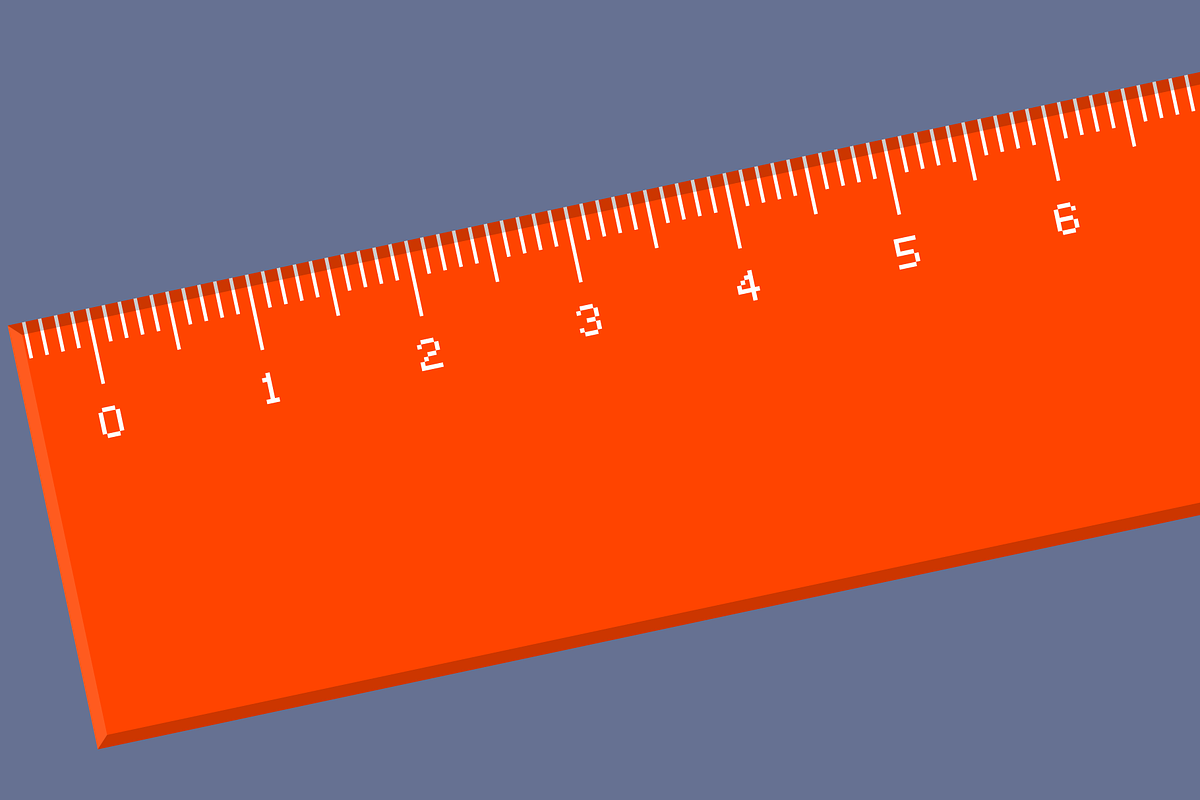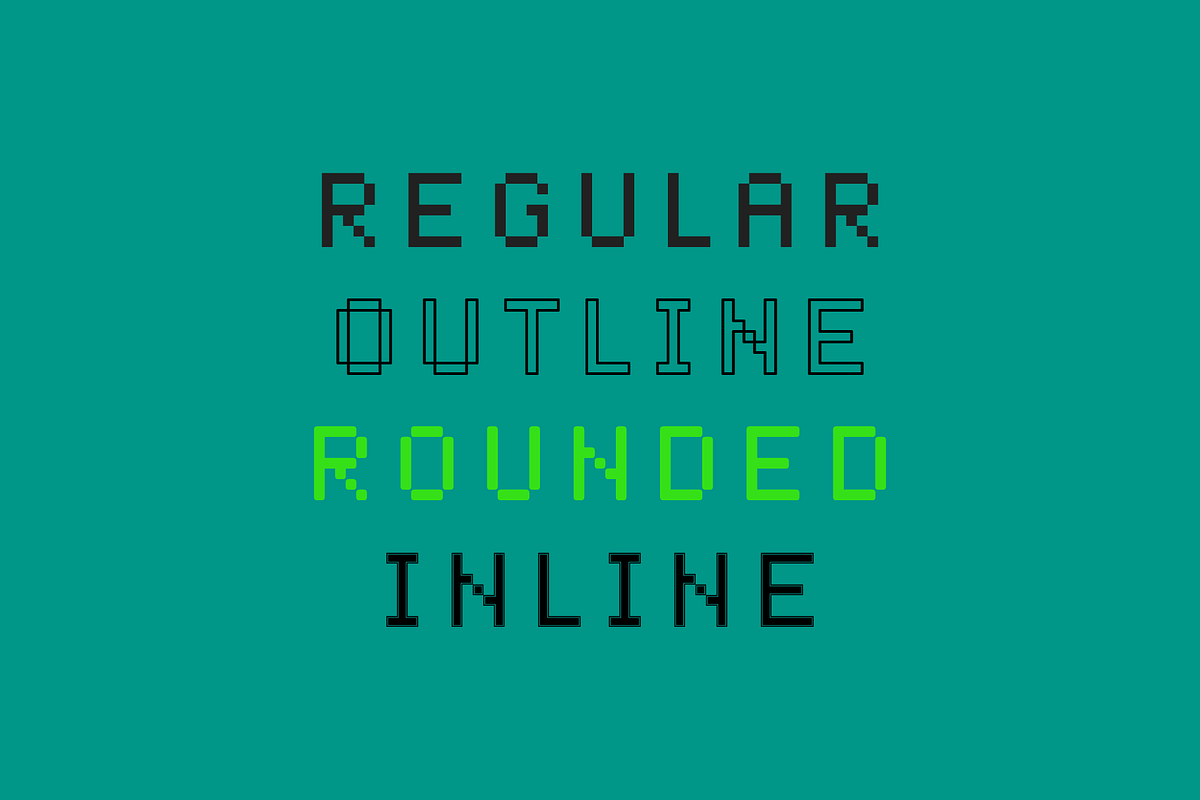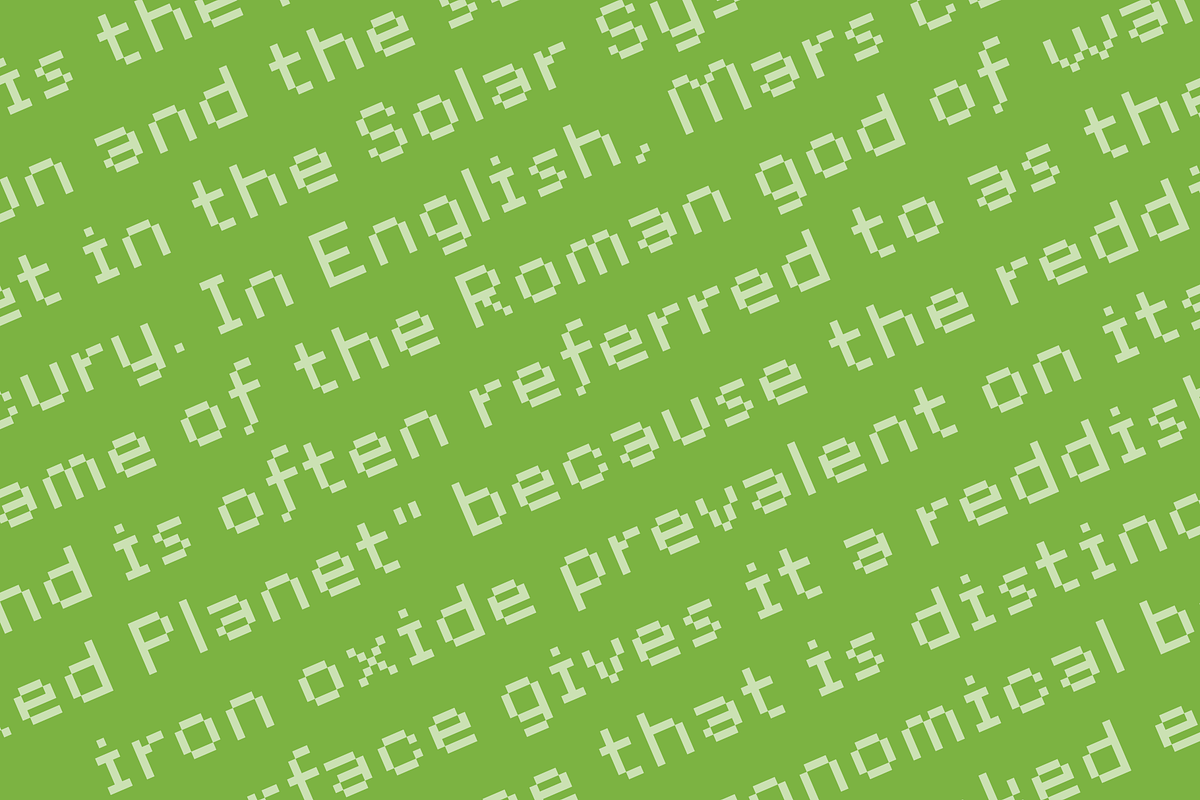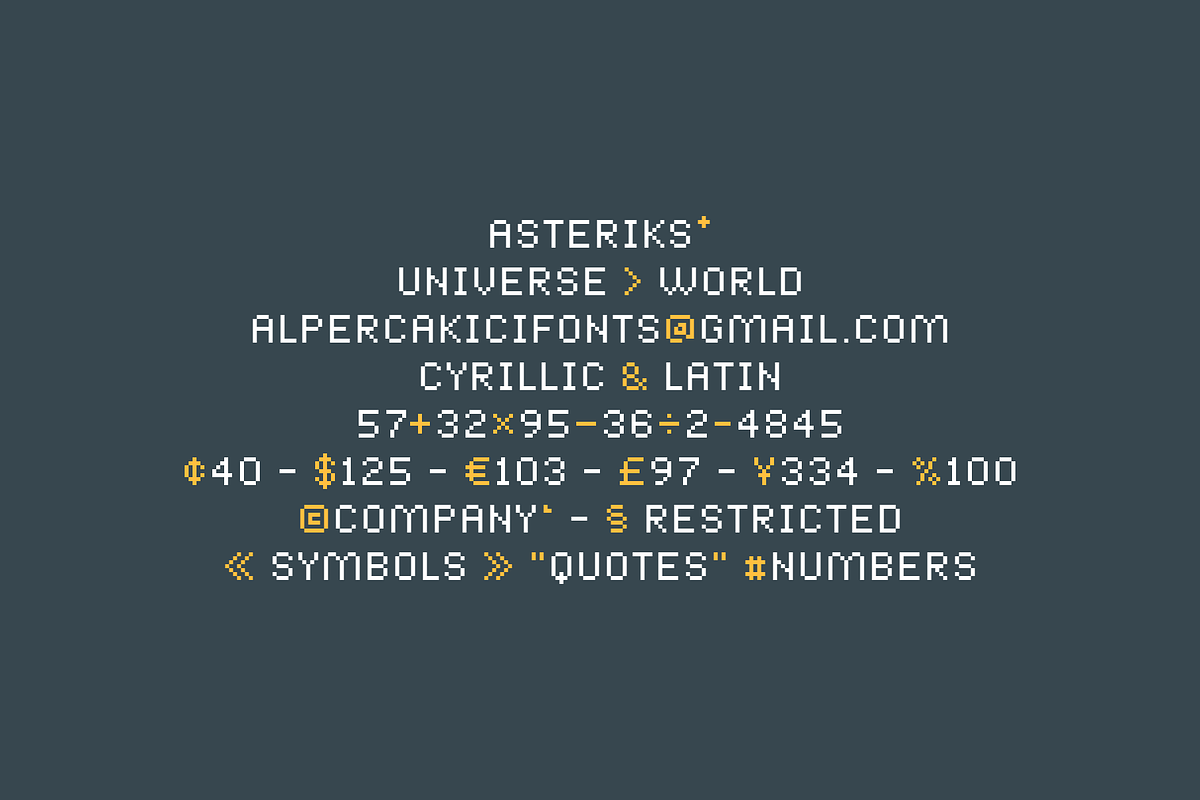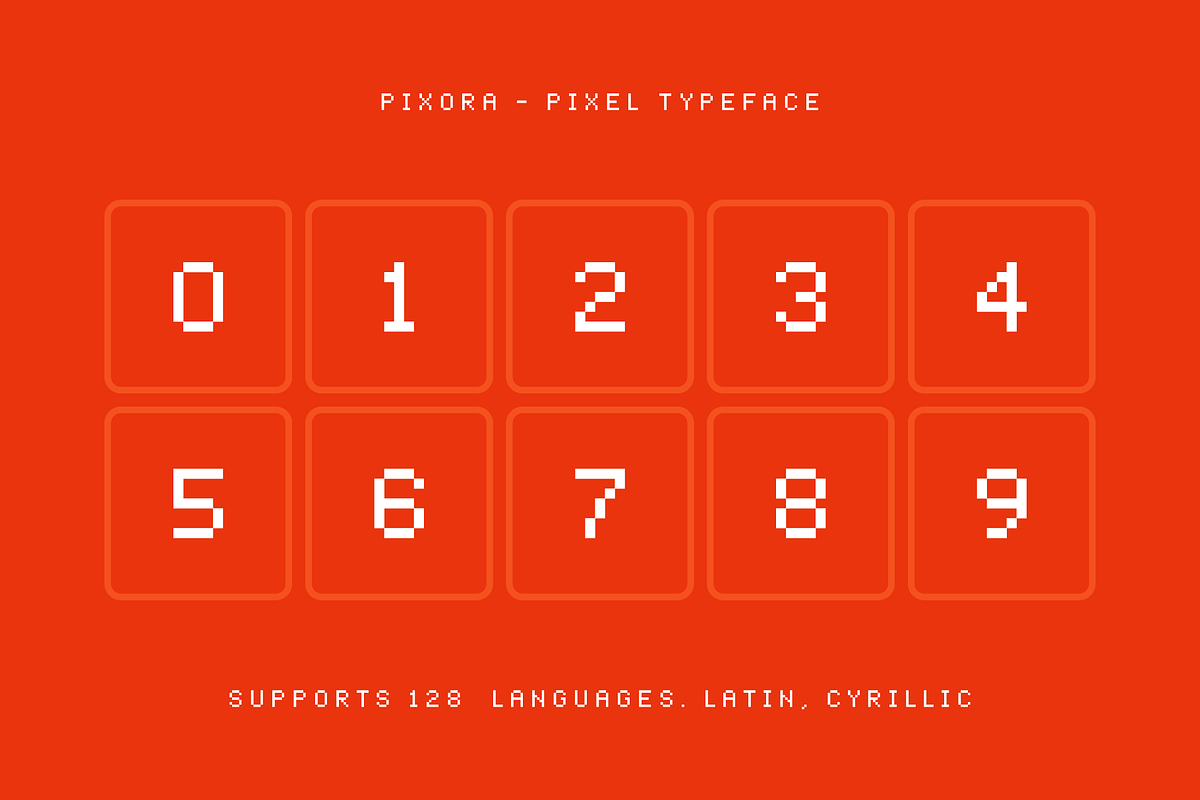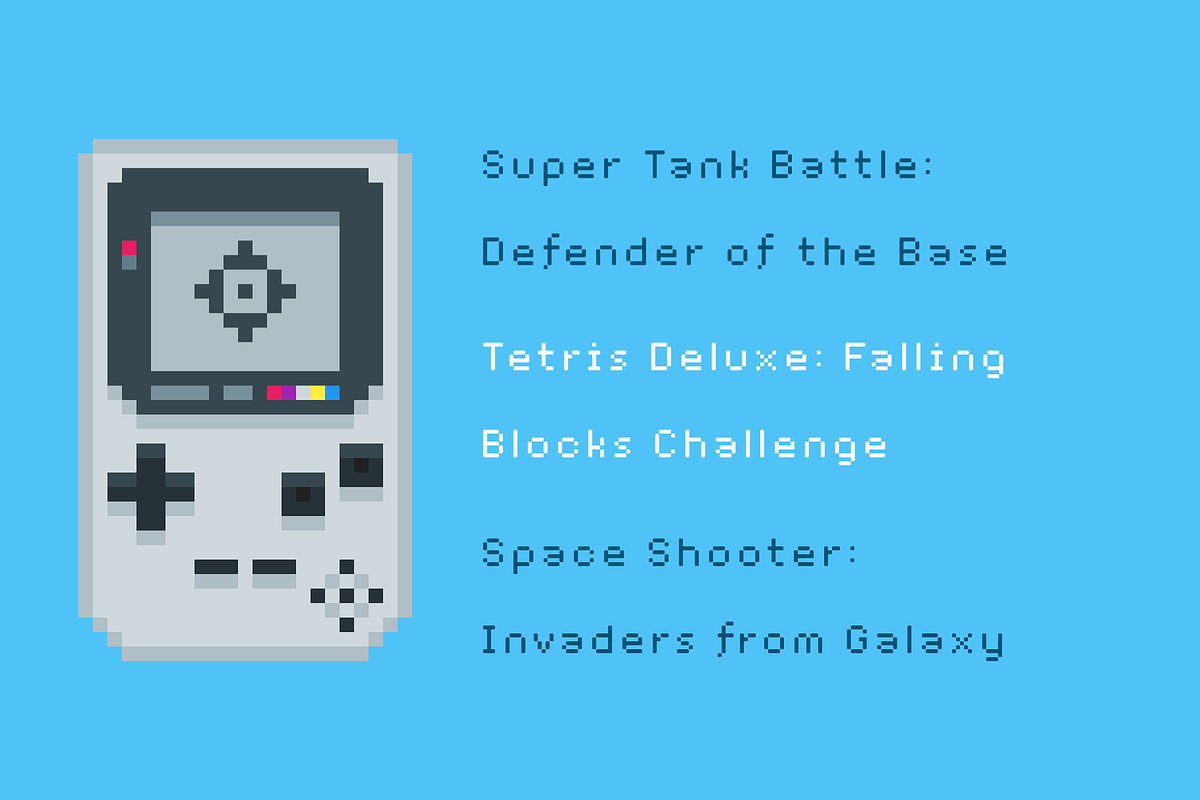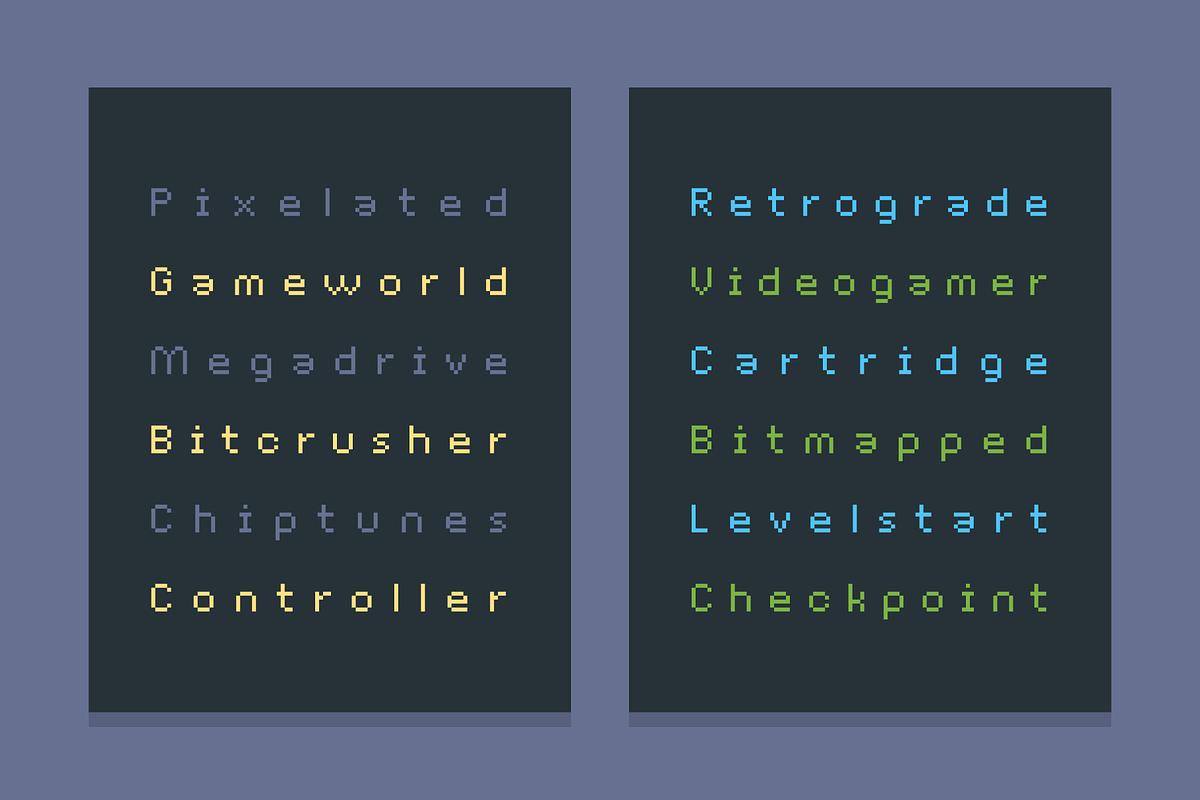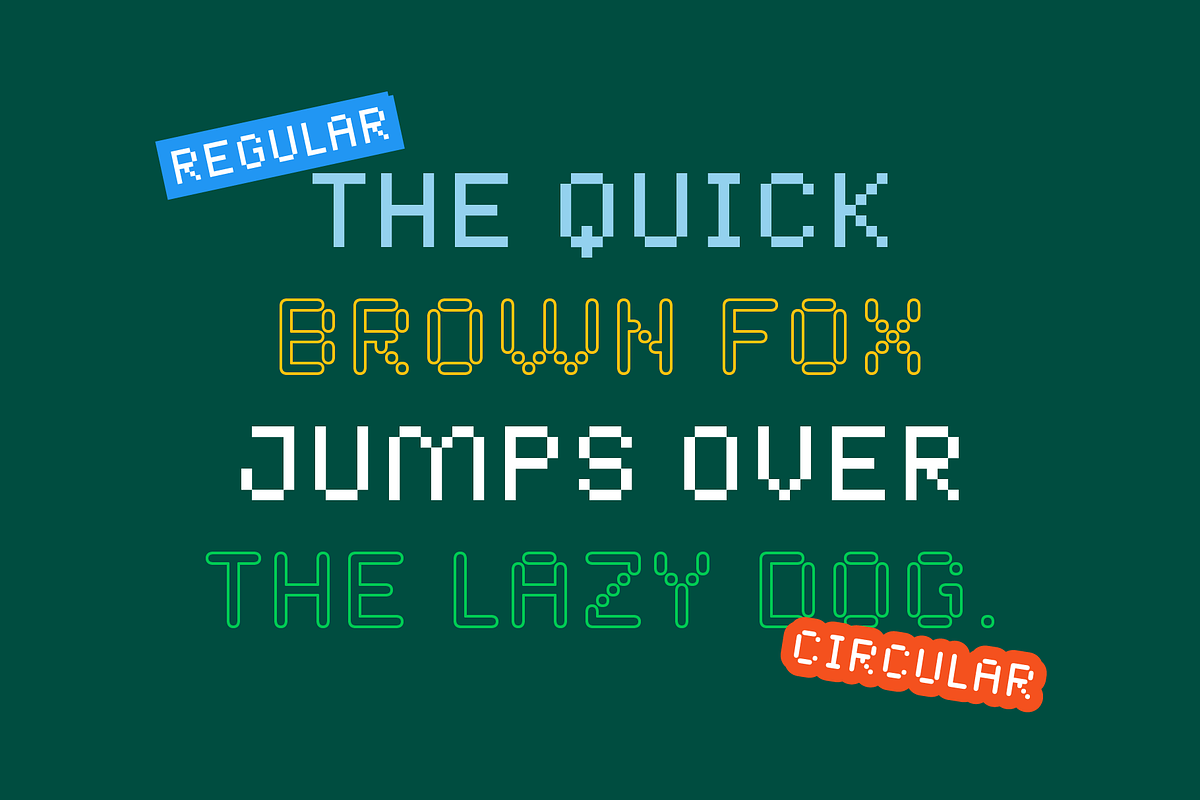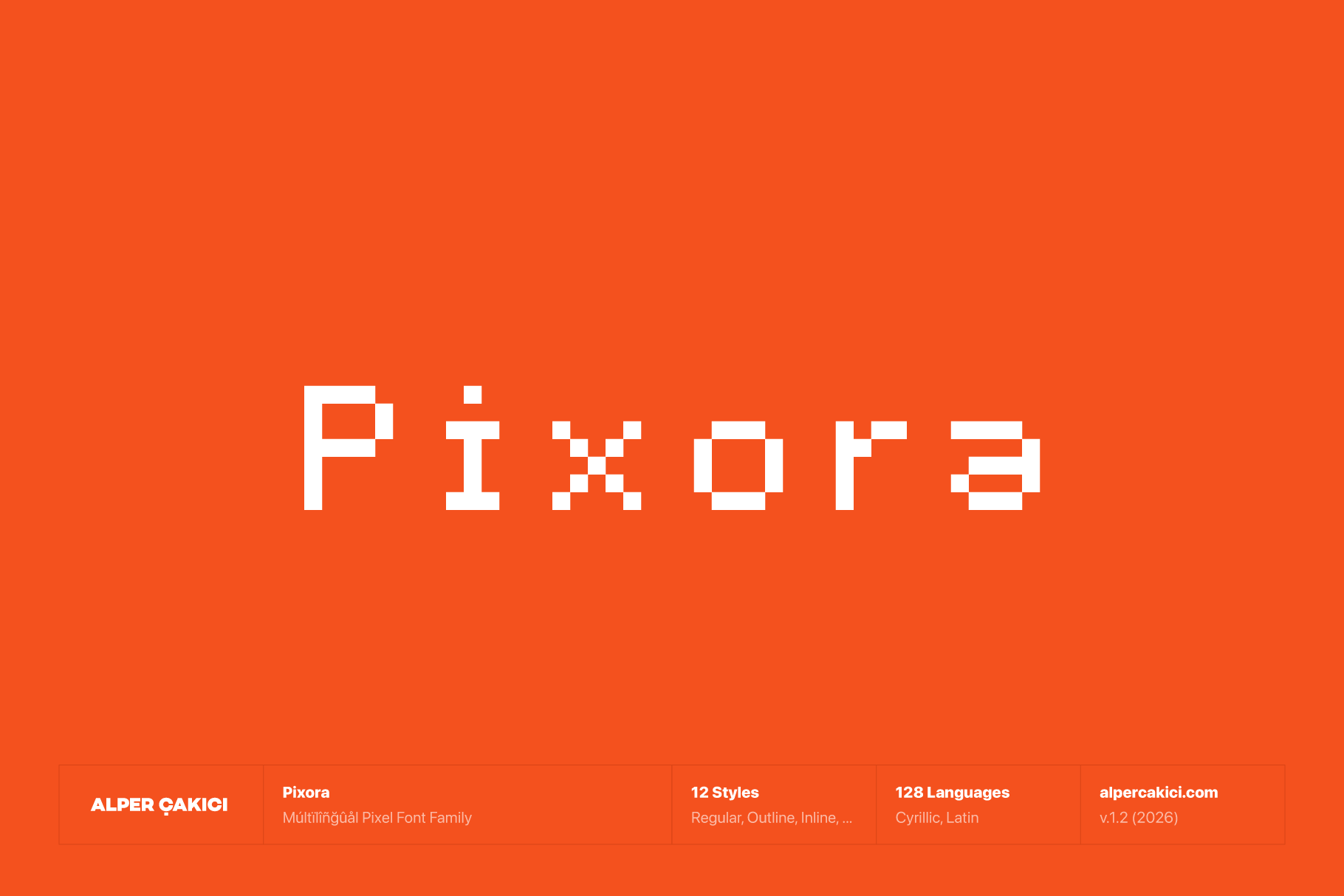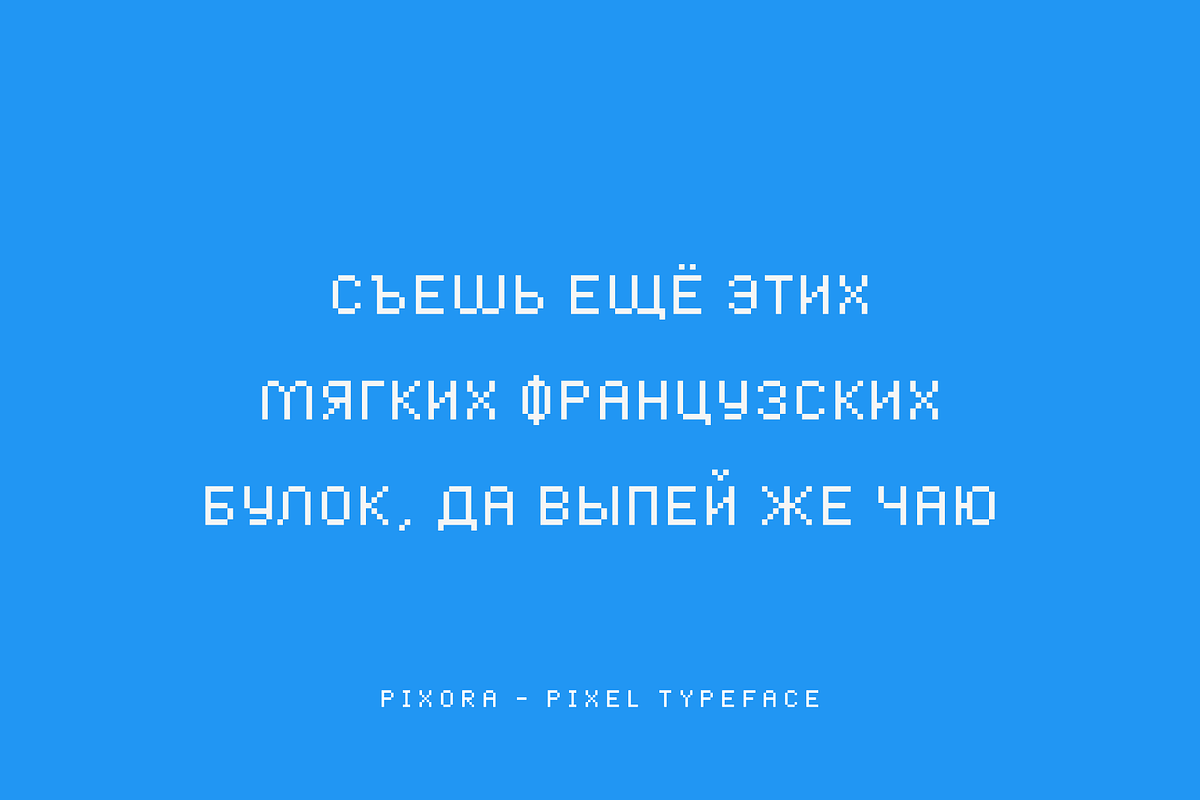
Pixora - Versatile Pixel Typeface
Pixora is a versatile pixel typeface that blends nostalgic bitmap charm with refined contemporary design. Built on a precise grid system, Pixora captures the spirit of classic arcade and early digital interfaces while maintaining clarity, balance, and modern usability.
Designed for display use, Pixora delivers crisp edges, strong rhythm, and excellent legibility at both small and large sizes. Its carefully constructed letterforms ensure consistency across languages, making it a reliable choice for multilingual branding, gaming projects, UI design, posters, packaging, and digital experiences.
- Authentic pixel construction
- Extensive language support (128 languages)
- Clean spacing and kerning
- Perfect for logos, games, apps, posters, and branding
- Multiple stylistic families for maximum versatility
Pixora is where retro pixels meet modern design control — a complete pixel system built for today’s creators.